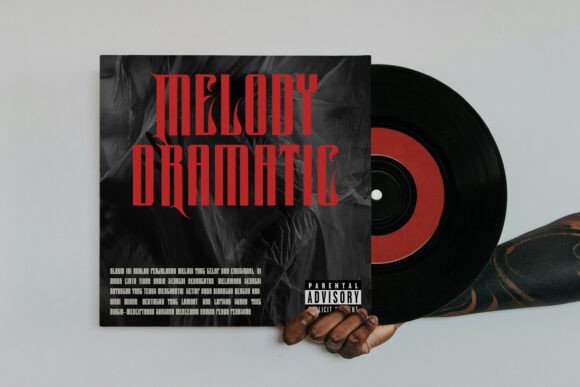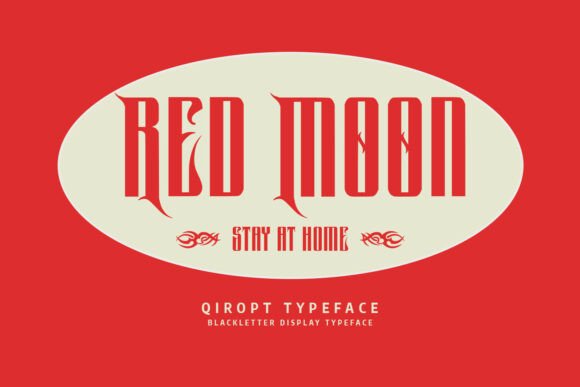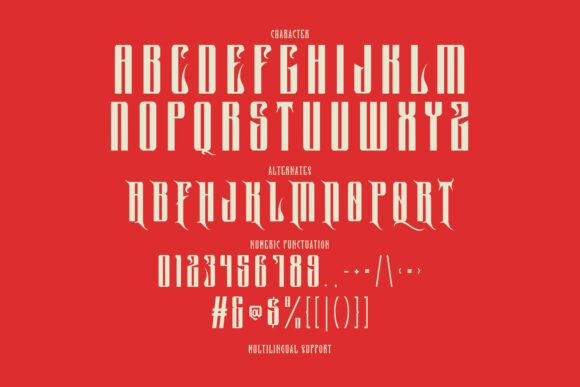
Unleash the Power of Qiropt Font
Have you ever found yourself stuck in a creative rut, searching for the perfect font to bring your project to life? I know I have. That’s why I’m excited to introduce you to Qiropt Font, a game-changing display font that’s about to revolutionize your design workflow. This bold, modern blackletter typeface is designed to make a statement and leave a lasting impression.
Whether you’re working on a heavy metal album cover, a horror movie poster, or a tattoo-inspired branding project, Qiropt Font is the perfect design resource to help you achieve your creative vision. With its unique blend of historical aggression and sleek, contemporary lines, this font is sure to add a touch of sophistication and edge to any project. And the best part? It’s free to download, so you can start experimenting with it right away.
So why is Qiropt Font so valuable for designers? For one, its high-quality design and transparent background make it incredibly versatile and easy to use. Plus, its unique aesthetic is sure to give your project a custom, hand-lettered feel that’s impossible to replicate with generic fonts. Whether you’re a seasoned pro or just starting out, Qiropt Font is an essential design resource that’s sure to take your creative projects to the next level.
Key Features of Qiropt Font
- High-quality design resource suitable for creative projects, available for free download.
- Unique, modern font style with a transparent background, allowing for flexibility in design.
- Includes a wide range of characters, including uppercase and lowercase letters, numbers, and special symbols.
- Designed with a high resolution of 300 DPI, making it suitable for both web and print design projects.
- Perfect for designers looking for a unique, high-quality design resource to elevate their creative project.
- Can be easily scaled up or down without losing its clarity and readability, making it ideal for various design applications.
Honest Review: Qiropt Font
As a designer, I’m always on the lookout for high-quality design resources to elevate my creative projects. Recently, I came across the Qiropt Font, and I must say, it’s been a great addition to my design arsenal.
- ✨ The Qiropt Font is incredibly versatile, with a wide range of applications from branding to digital products.
- ✨ The font is highly customizable, allowing for seamless integration with various design tools and software.
- ⚠️ The font may not be suitable for projects requiring a transparent background, as it can appear pixelated or distorted.
- ⚠️ The font’s scalability can be a bit limited, particularly at smaller font sizes.
Overall, I’m impressed with the Qiropt Font’s high quality and ease of use. While it may not be perfect for every design project, it’s definitely a valuable resource to have in your design toolbox.
The Qiropt Font is a versatile design resource perfect for creative projects. It’s available for free download and offers a high-quality, elegant look that’s ideal for a variety of applications.
The Qiropt Font is ideal for a variety of creative projects, including:
- Logo designs
- Print materials